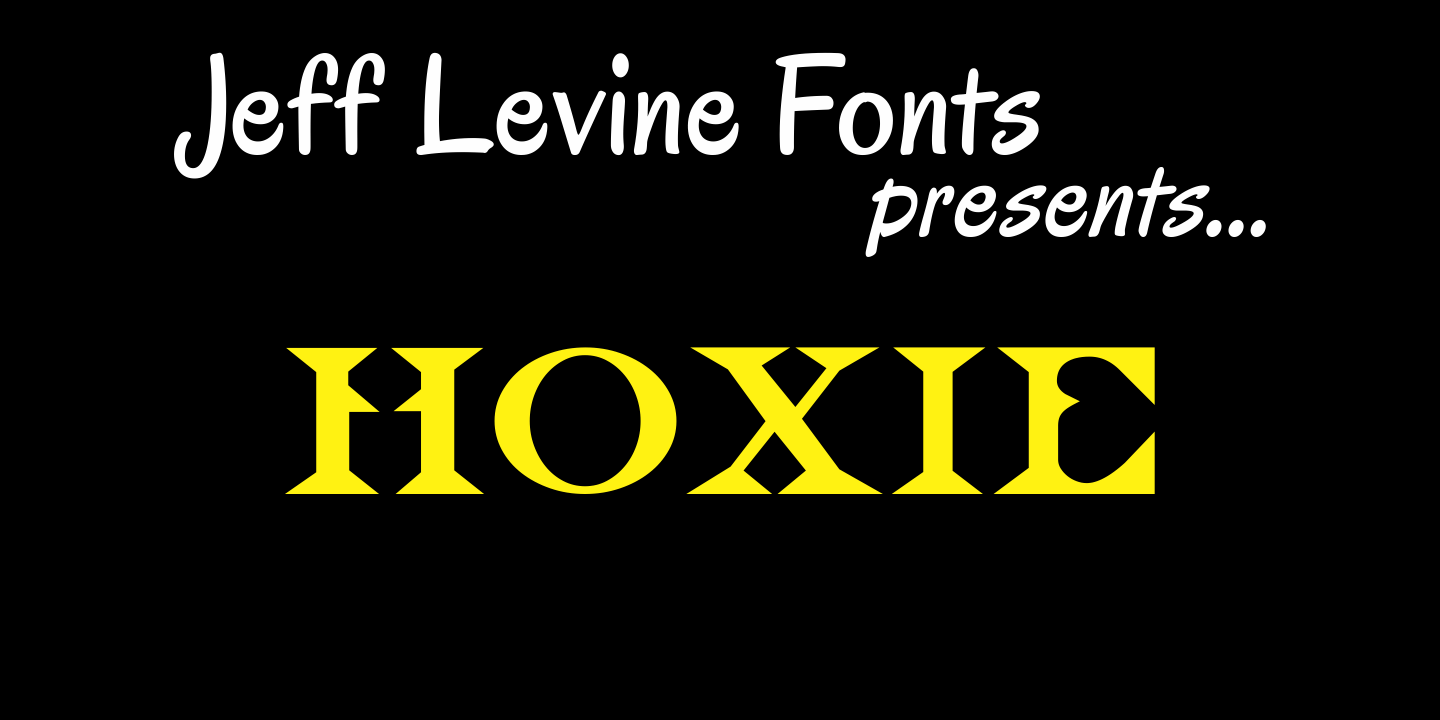
Hoxie
Hoxie JNL is based on an example found in an old sign painters' design book from the early 1900s and has been translated to digital form by Jeff Levine. All of the quirks and charm of hand lettering have remained.